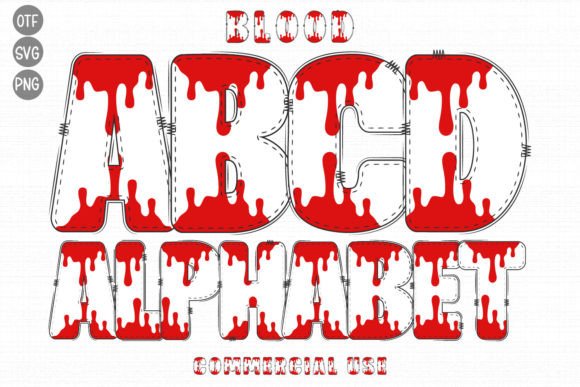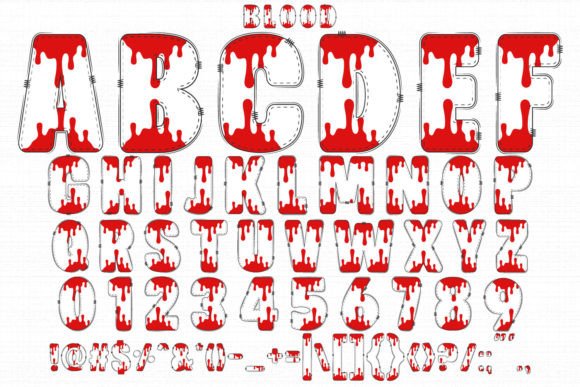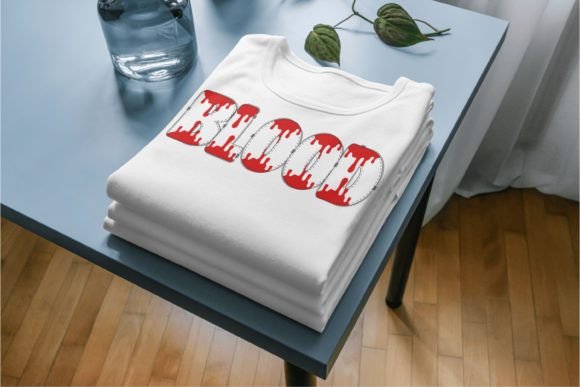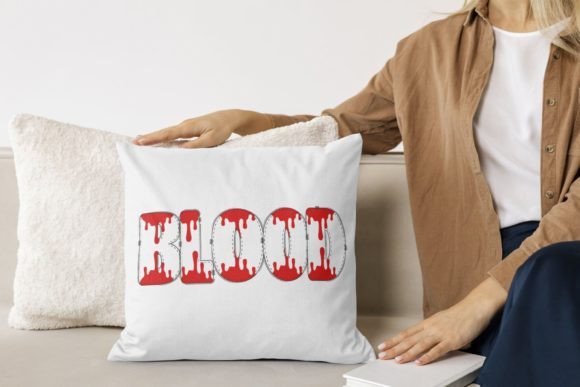
Blood Font
About the Blood Font
Discover the charm of Blood Font. This font is a perfect blend of modern aesthetics and classic appeal. Blood is a decorative font with a Blood skin texture. This font is perfect for nature-themed designs and for children’s projects. No matter the topic, this font will be an incredible asset to your fonts’ library, as it has the potential to elevate any creation.
Blood Font’s unique texture makes it ideal for eye-catching headlines, posters, and branding projects where a bold, slightly rebellious statement is desired. It works exceptionally well for packaging of products related to nature, horror, or fantasy themes. However, its decorative nature and texture make it unsuitable for body text or UI elements; readability suffers at smaller sizes.
Pairing Blood Font effectively requires considering its strong personality. A clean sans-serif like Futura or a geometric sans-serif such as Bebas Neue would provide a strong contrast and enhance readability in supporting text. For a more organic feel, a slightly informal serif like Playfair Display could work well.
The overall personality of Blood Font is bold and attention-grabbing, lending itself to projects that require a striking visual impact. Avoid using it in contexts demanding subtlety or elegance.